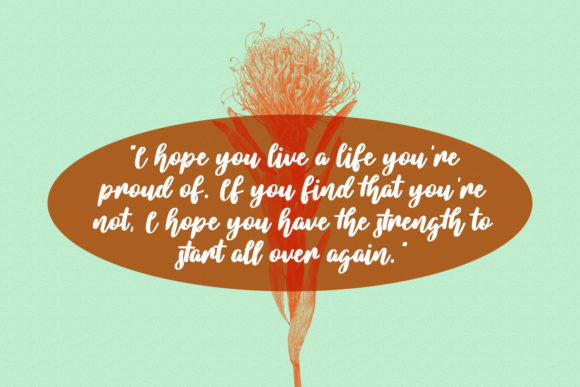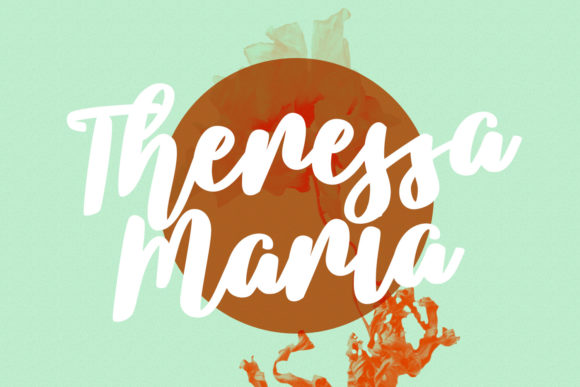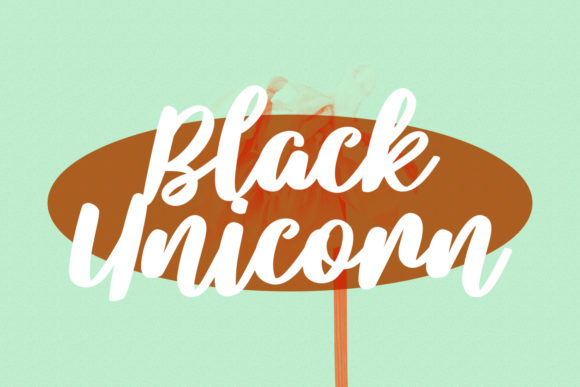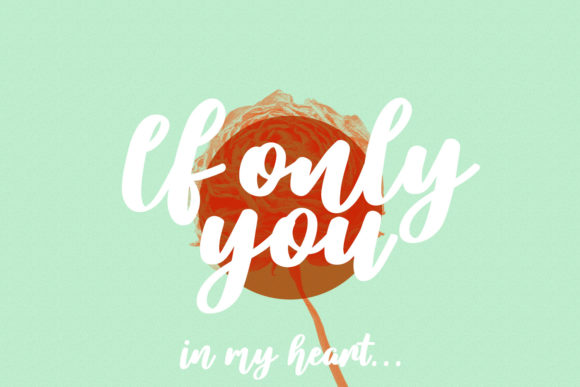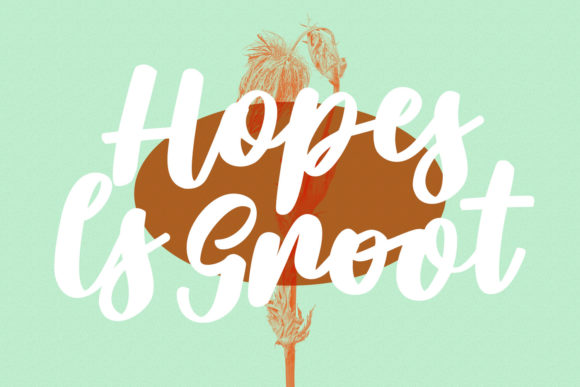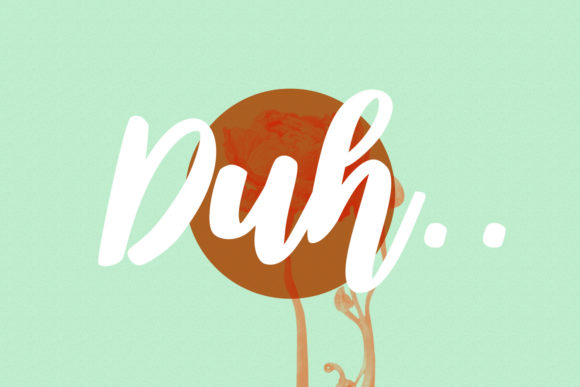
Atherist Script Font: Elevate Your Designs with a Modern Twist
In the world of typography, script fonts hold a special place for their elegance, personality, and versatility. Among the myriad of script fonts available, Atherist stands out as a modern, eye-catching choice that can elevate your designs to new heights. Atherist is a contemporary script font characterized by its slanted bold strokes, fun characters, and unique ligatures, making it an excellent choice for a wide range of design projects.
What Makes Atherist Unique?
Atherist brings a fresh and modern approach to script typography. Its key features include:
• Slanted Bold Strokes: The font’s slanted strokes give it a dynamic and energetic feel, perfect for grabbing attention.
• Fun Characters: Atherist includes a set of fun and playful characters that can add a touch of whimsy to your designs.
• Unique Ligatures: The font features unique ligatures that provide a natural, handwritten look, making your text stand out.
One of the significant advantages of Atherist is its versatility. This font is not limited to a specific use case; instead, it can be applied to a variety of projects, including:
• Logo Design: The bold and unique characteristics of Atherist make it perfect for creating memorable logos that stand out.
• Social Media: Use Atherist to create eye-catching social media posts, stories, and banners that capture your audience’s attention.
• Movie and Book Titles: The font’s elegance and modernity make it suitable for movie titles, book covers, and any project requiring a touch of sophistication.
• Short and Long Text: Whether you’re working with a short phrase or a lengthy paragraph, Atherist maintains its readability and aesthetic appeal.
Why Choose Atherist?
With so many fonts available, why should Atherist be your choice? Here are a few compelling reasons:
• Unique Designs: Atherist offers a unique design that can help your work stand out from the crowd.
• Easy to Read: Despite its stylized nature, Atherist remains highly legible, making it suitable for both short and long texts.
• Highly Versatile: Its wide range of applications makes Atherist a valuable addition to any designer’s font library.
• User-Friendly: Atherist is easy to use, even for those with basic knowledge of design software.
Tips for Making Stunning Work with Atherist
To maximize the potential of Atherist, consider the following tips:
• Experiment with Sizes: Atherist’s impact can vary significantly with size. Experiment with different sizes to find the perfect balance for your project.
• Play with Colors: The font’s bold strokes and unique ligatures can be further emphasized with the right color choices.
• Mix and Match: Don’t be afraid to combine Atherist with other fonts to create a unique contrast and add depth to your design.
• Utilize Ligatures: Make the most of Atherist’s unique ligatures to add a personal touch to your text.
Atherist script font is a powerful tool for designers looking to add a modern twist to their work. Its unique features, versatility, and ease of use make it an excellent choice for a wide range of projects, from logos and social media posts to movie titles and book covers. By experimenting with Atherist and applying the tips outlined above, you can create stunning designs that capture your audience’s attention and leave a lasting impression.